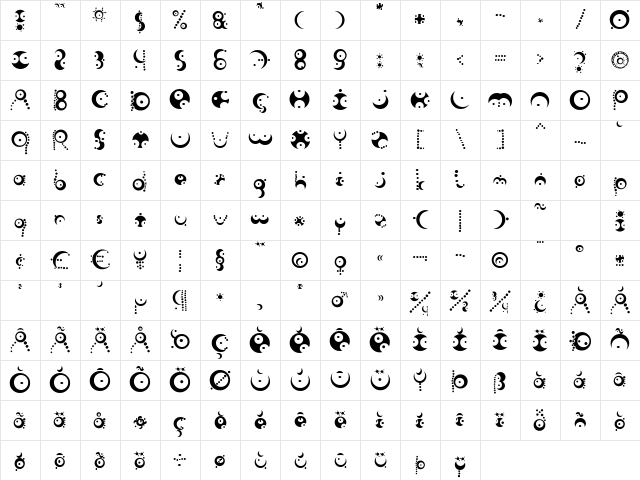
Complete Fish in the bathroom Regular glyph index. Displaying only characters natively supported by Fish in the bathroom Regular font.
Fish in the bathroom is a composed and adaptable typeface that performs quietly and consistently across a wide range of design contexts.